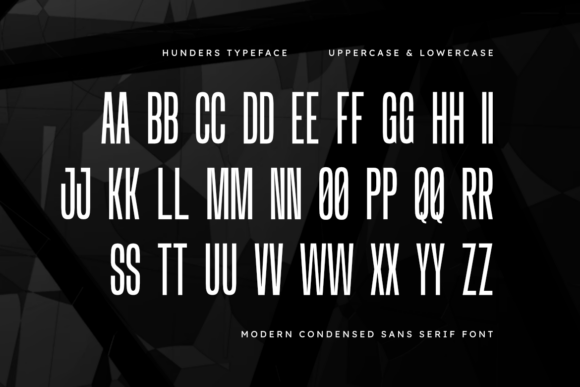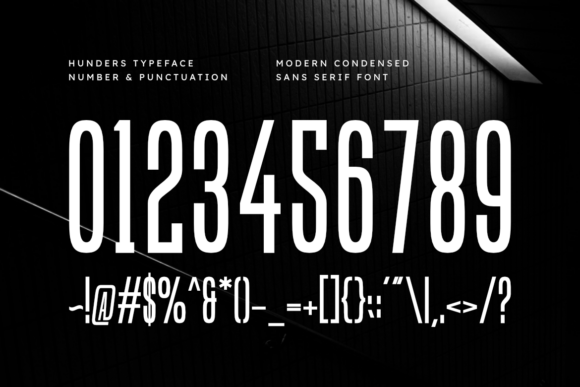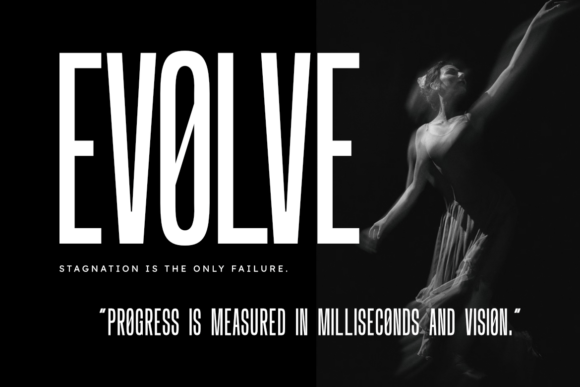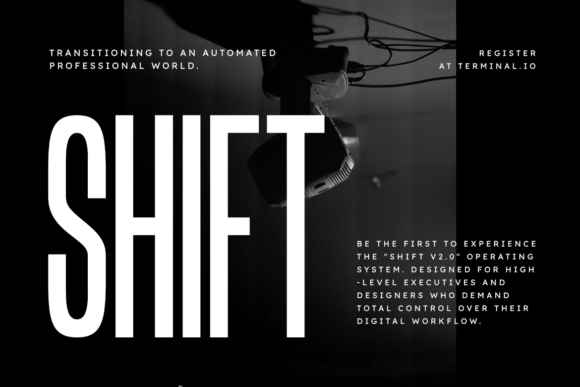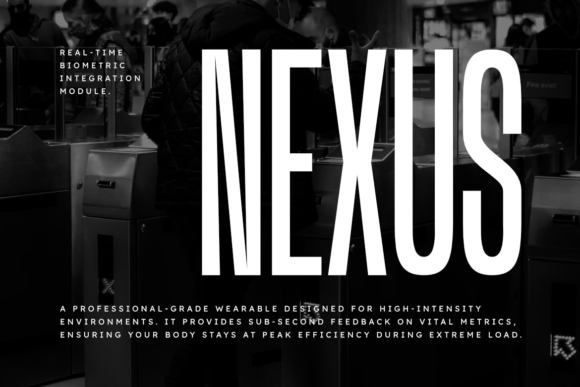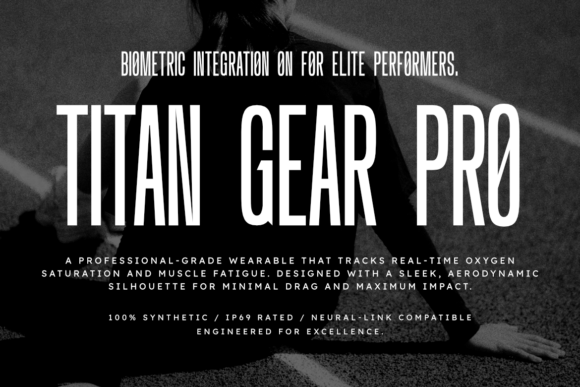
Introduction to Hunders Font
Hunders is a bold and powerful modern condensed sans serif font designed for high-impact and elegant typography.
With its tall, refined structure and clean geometric lines, this font is perfect for strong headlines, professional logos, fashion branding, and high-impact advertising posters Its confident and all-caps design gives your visuals a striking, professional, and modern look.